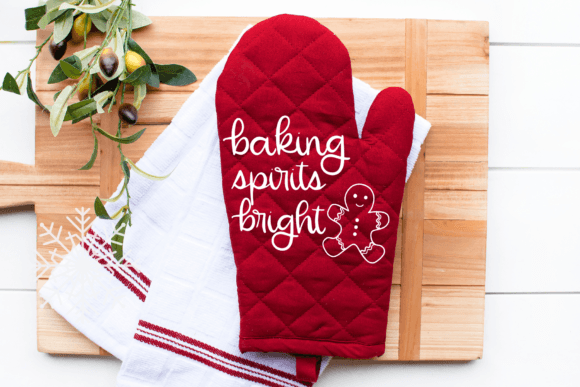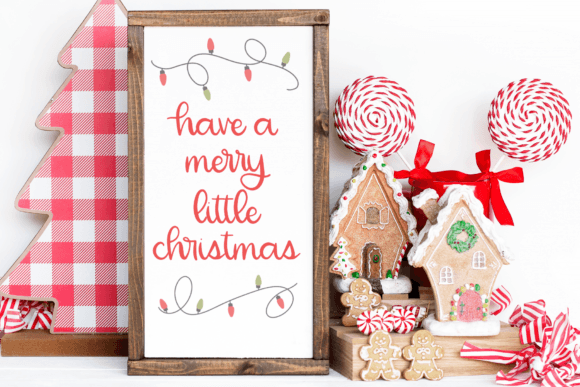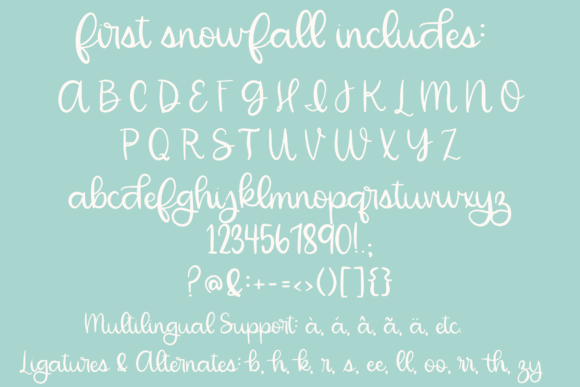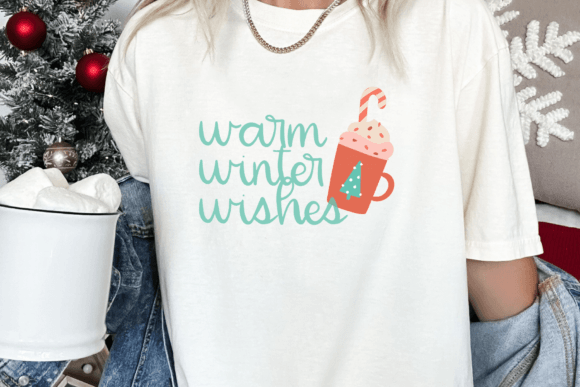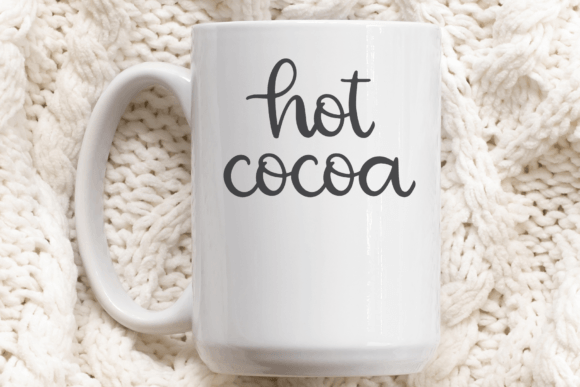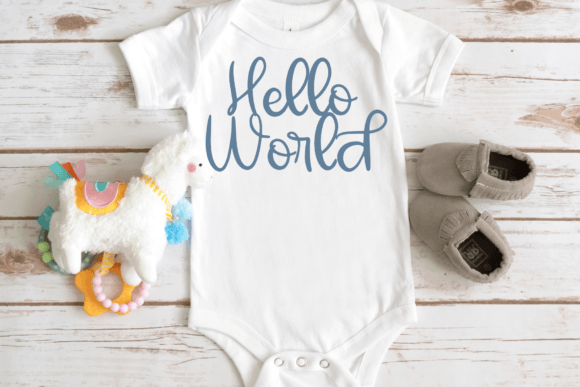
Introducing First Snowfall Font: A Charming Handwritten Addition to Your Creative Projects
Are you tired of using the same old fonts in your creative projects? Look no further! We’re excited to introduce First Snowfall, an energetic handwritten font that’s sure to add a touch of whimsy and personality to your designs. This charming font is perfect for craft enthusiasts, especially those who love working with Cricut machines.
What Makes First Snowfall Font Special?
First Snowfall Font is a unique and playful handwritten font that’s designed to bring your creations to life. Its fun and energetic style makes it perfect for a variety of projects, from cards and scrapbooking to SVG files and other craft designs. Whether you’re a professional designer or a hobbyist, this font is sure to inspire your creativity.
Perfect for Cricut Designs
If you’re a Cricut enthusiast, you’ll love First Snowfall Font. This font is specifically designed to work seamlessly with Cricut machines, making it easy to cut out your designs with precision and accuracy. With First Snowfall Font, you can create stunning Cricut projects that are sure to impress.
Halloween and Beyond: A Font for All Seasons
While First Snowfall Font has a playful and spooky vibe that’s perfect for Halloween, it’s also versatile enough to use in a variety of other projects. Whether you’re designing Christmas cards, Valentine’s Day gifts, or just want to add some personality to your everyday crafts, this font is a great choice.
Key Features of First Snowfall Font
- Energetic Handwritten Style: First Snowfall Font features a fun and energetic handwritten style that’s perfect for adding a touch of whimsy to your designs.
- Playful and Fun: This font is designed to be playful and fun, making it perfect for a variety of creative projects.
- Perfect for Cricut: First Snowfall Font is specifically designed to work seamlessly with Cricut machines.
- SVG Files: This font is also perfect for designing SVG files, making it a great choice for craft enthusiasts.
Tips for Using First Snowfall Font
Here are a few tips for getting the most out of First Snowfall Font:
- Experiment with Different Sizes: First Snowfall Font looks great in a variety of sizes, so don’t be afraid to experiment and find the perfect size for your project.
- Pair with Other Fonts: This font pairs well with a variety of other fonts, so feel free to get creative and try out different combinations.
- Use in Combination with Images: First Snowfall Font looks great when used in combination with images, so consider adding some fun and playful graphics to your designs.